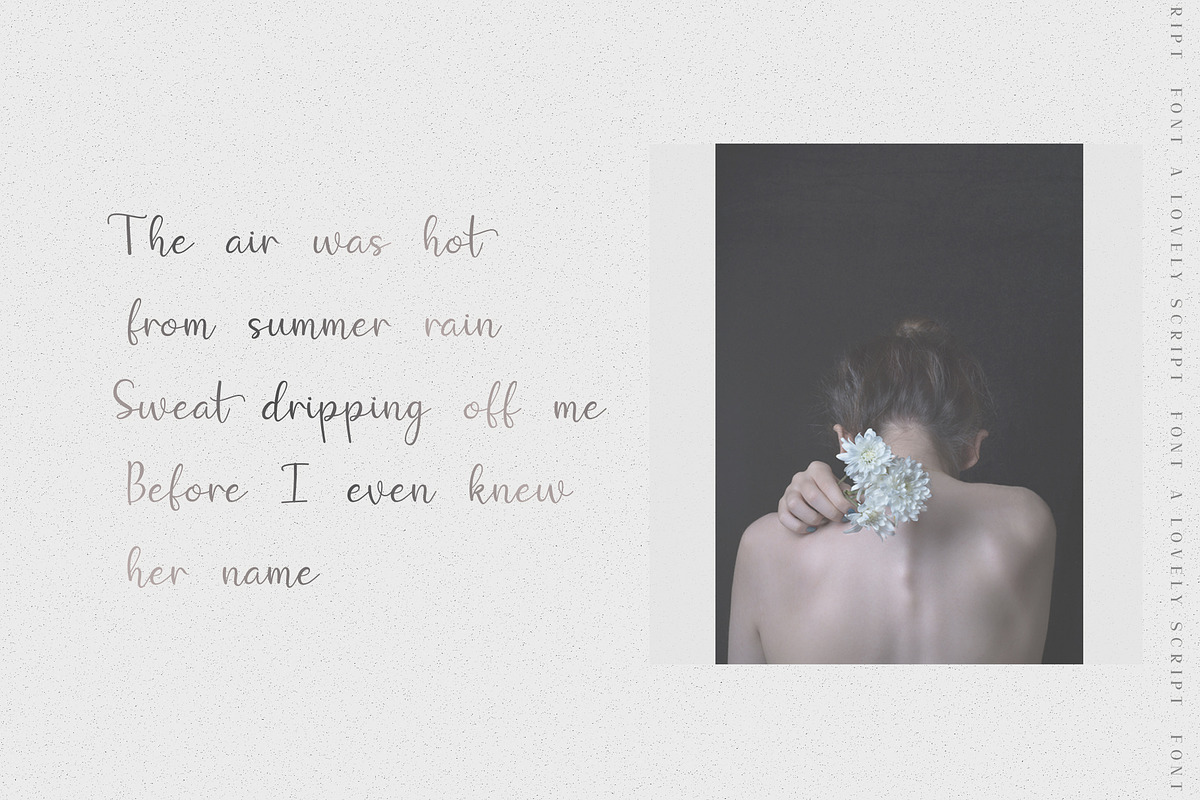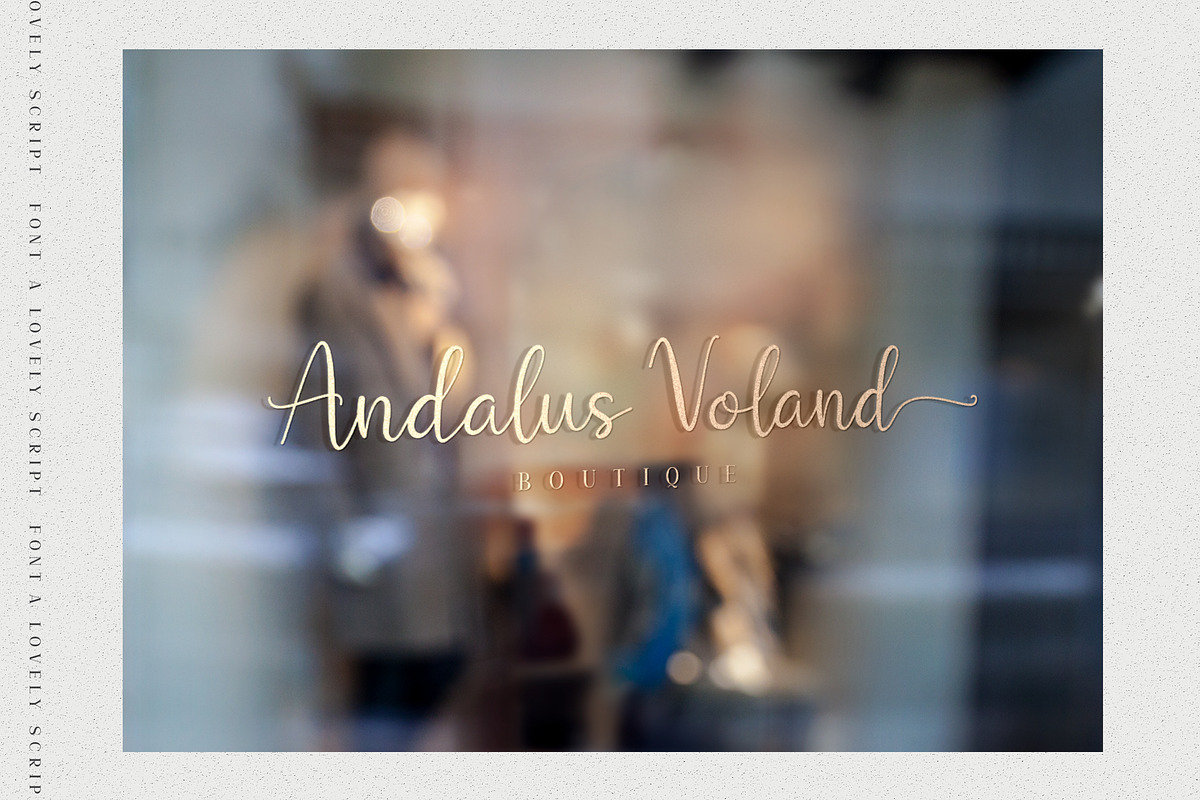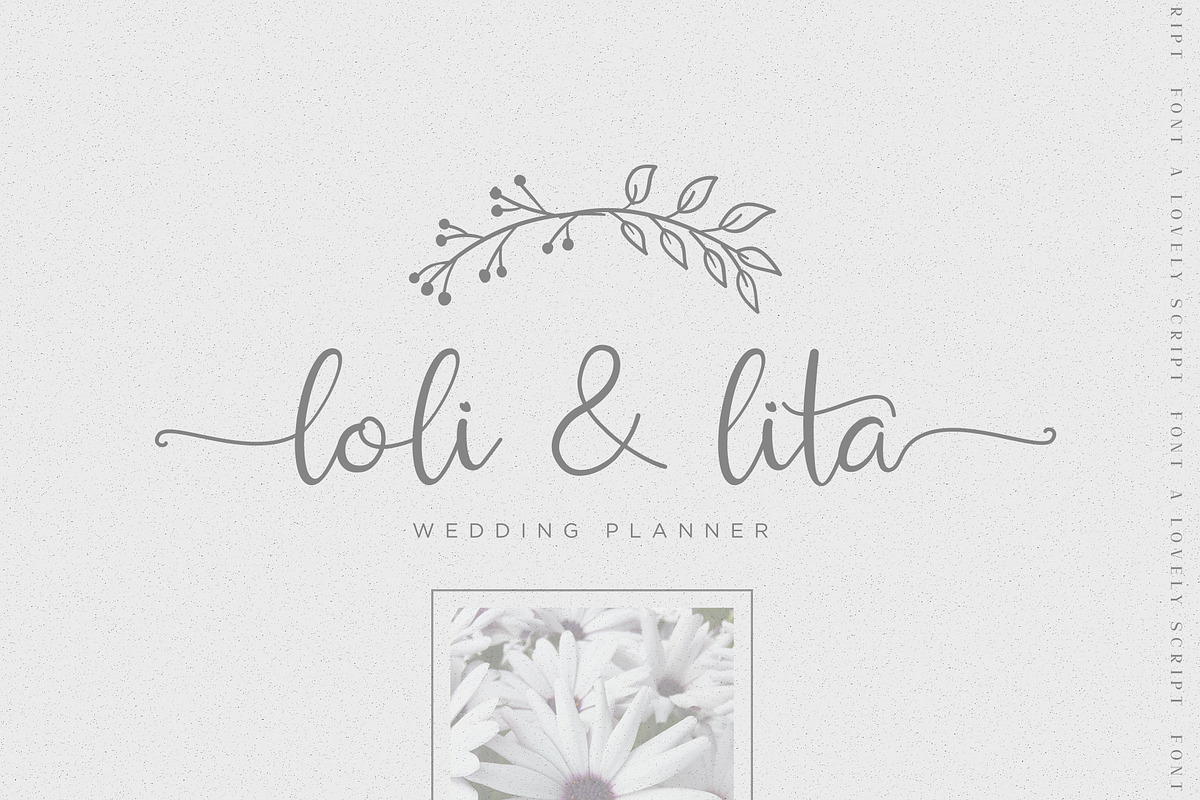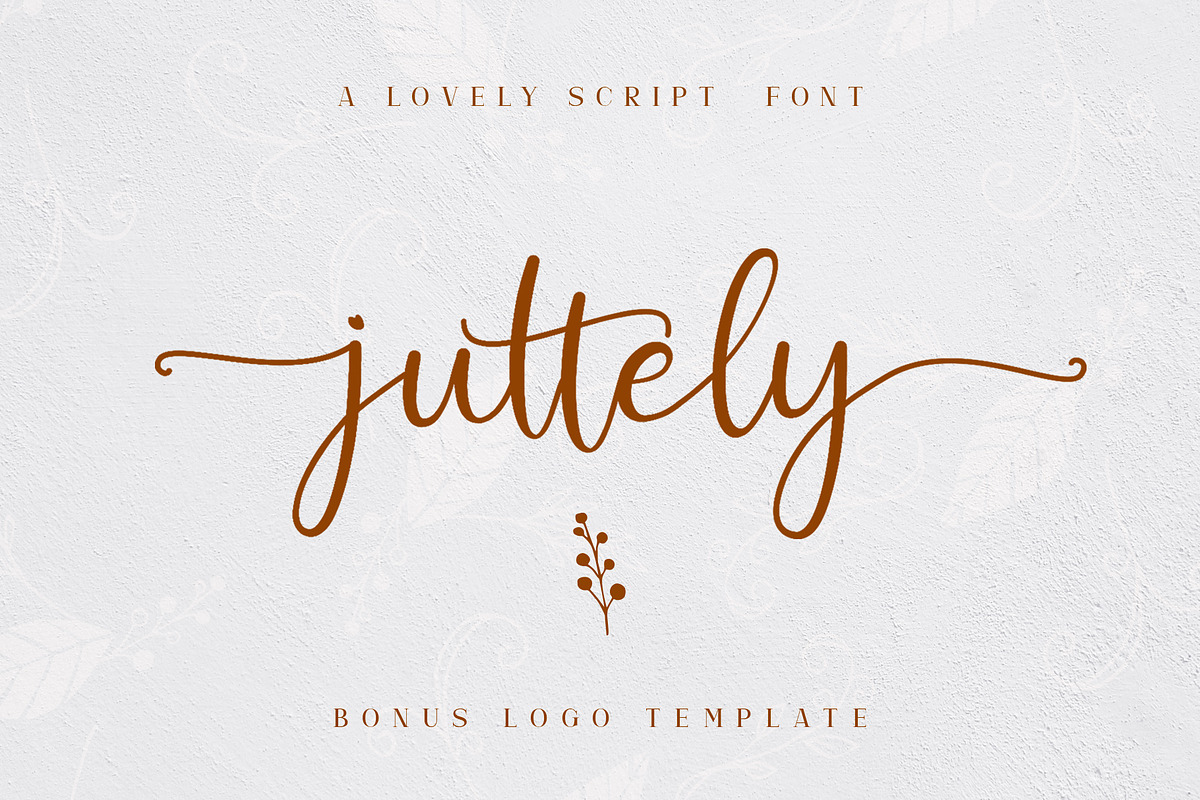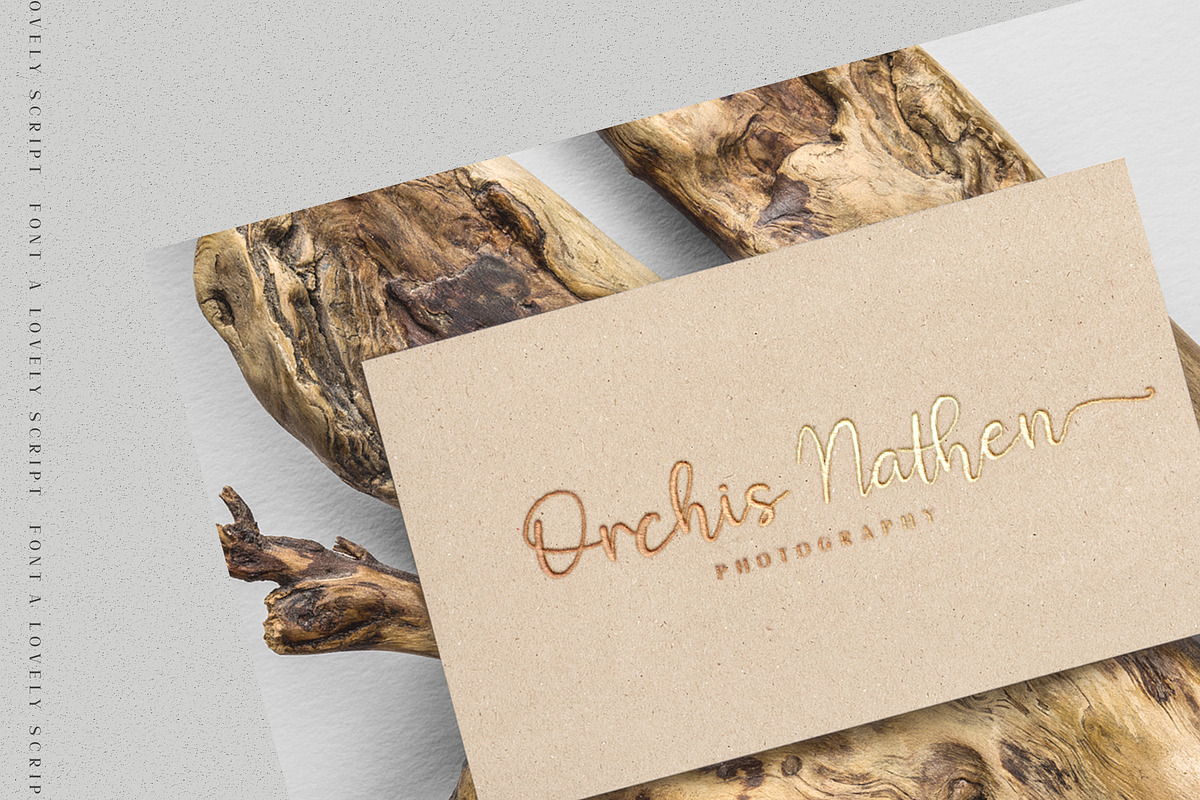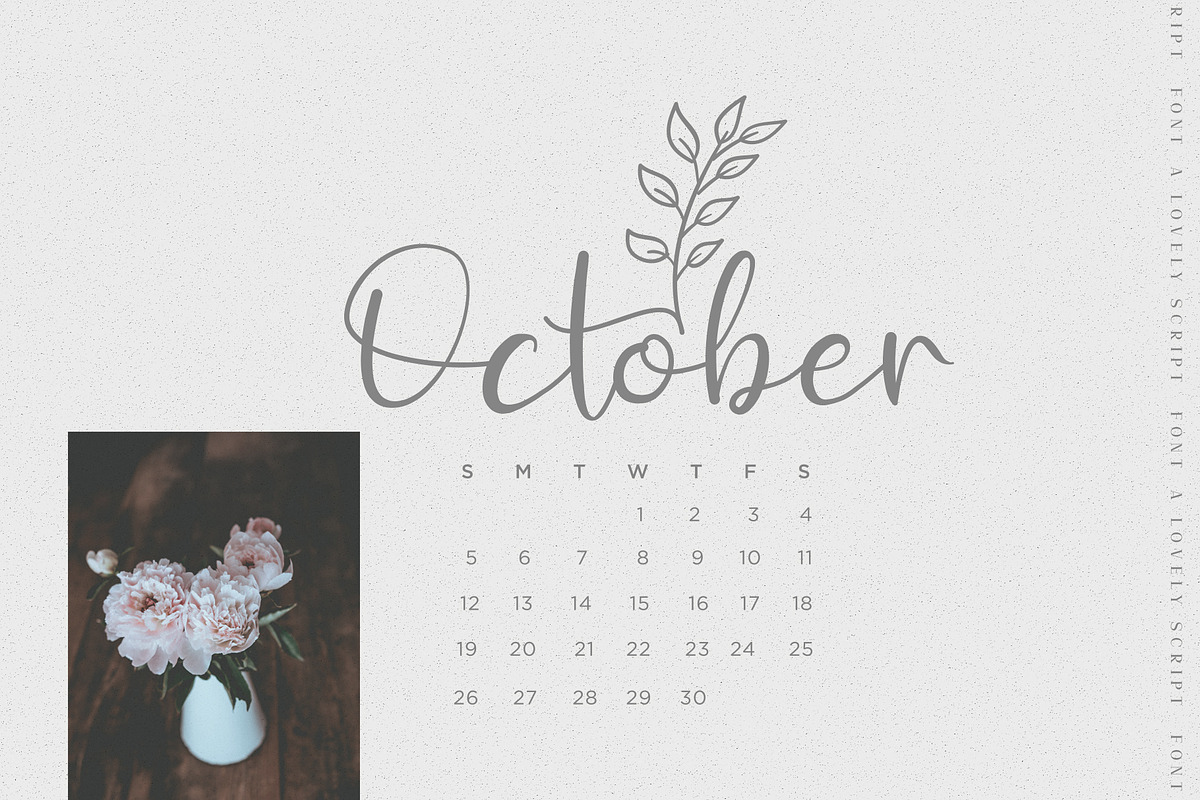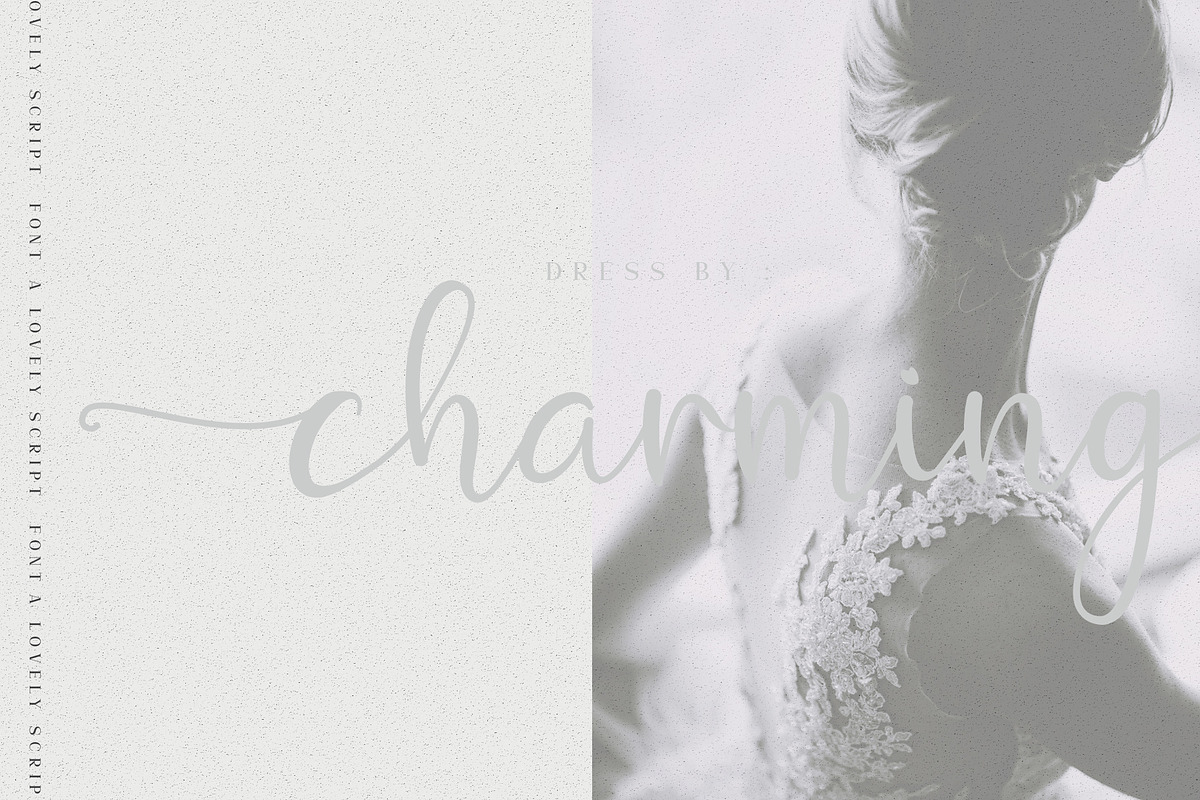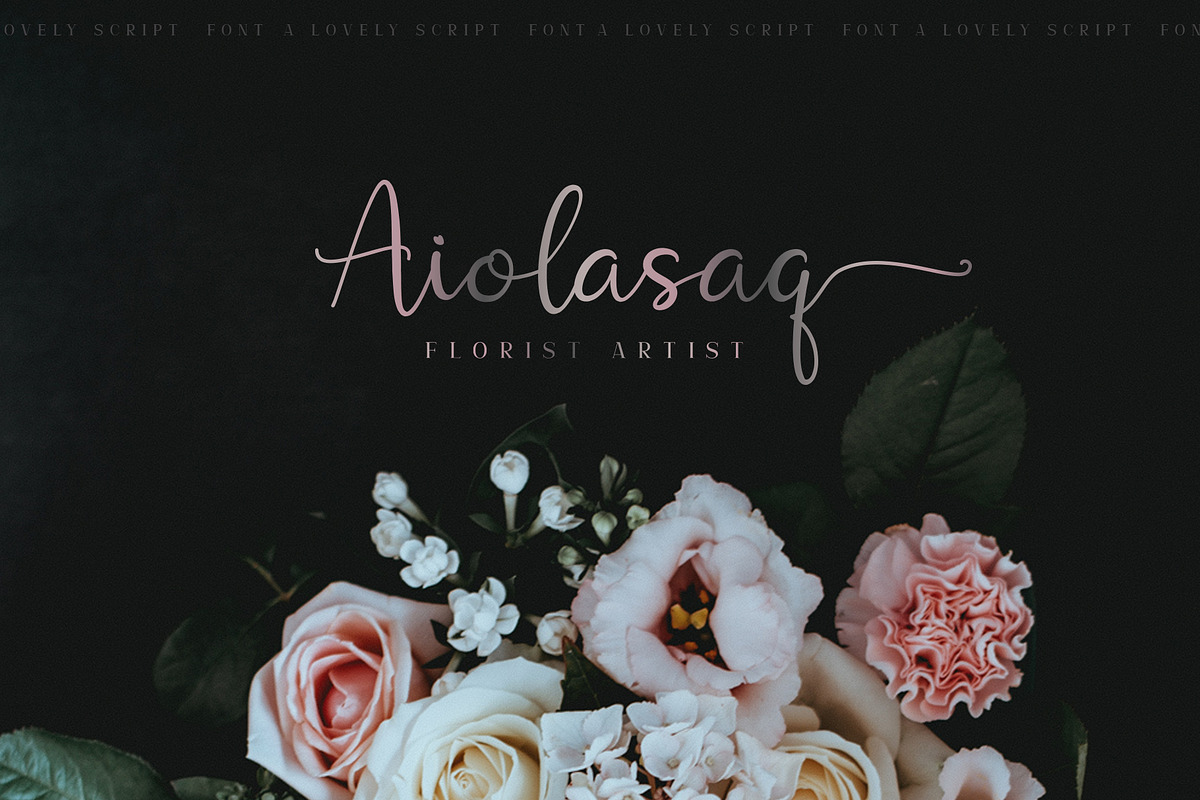
Juttely - A Lovely Script Font
Juttely is modern calligraphy font with handwritten, sophisticated flows. It is full glyphs:). It is perfect for branding, wedding invites and cards.
"Juttely" includes full set of lovely uppercase and lowercase letters, multilingual symbols, numerals, punctuation and ligatures.Also it includes: -short lowercase & uppercase beginning and ending swashes , which serve to connect two words or letters (This is so perfect for invitations, monograms)
The font has smooth texture, so would be perfect for all types of printing techniques+you can do embroidery, laser cut, gold foil etc.
Bonus Logo Template and Florist Element